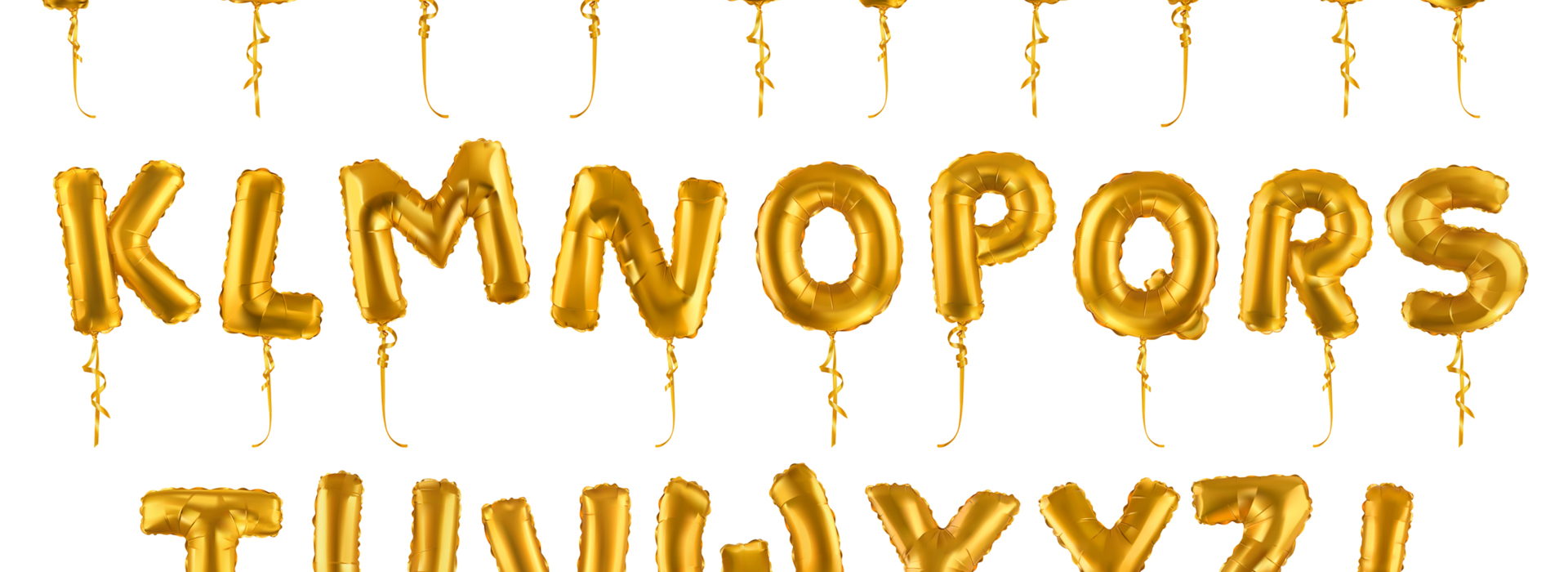
Golden inflatable toy balloons, Gold Foil Balloons Alphabet Font
Elegant golden foil alphabet-shaped balloons floating, perfect for festive celebrations, creative designs, and joyful messages.